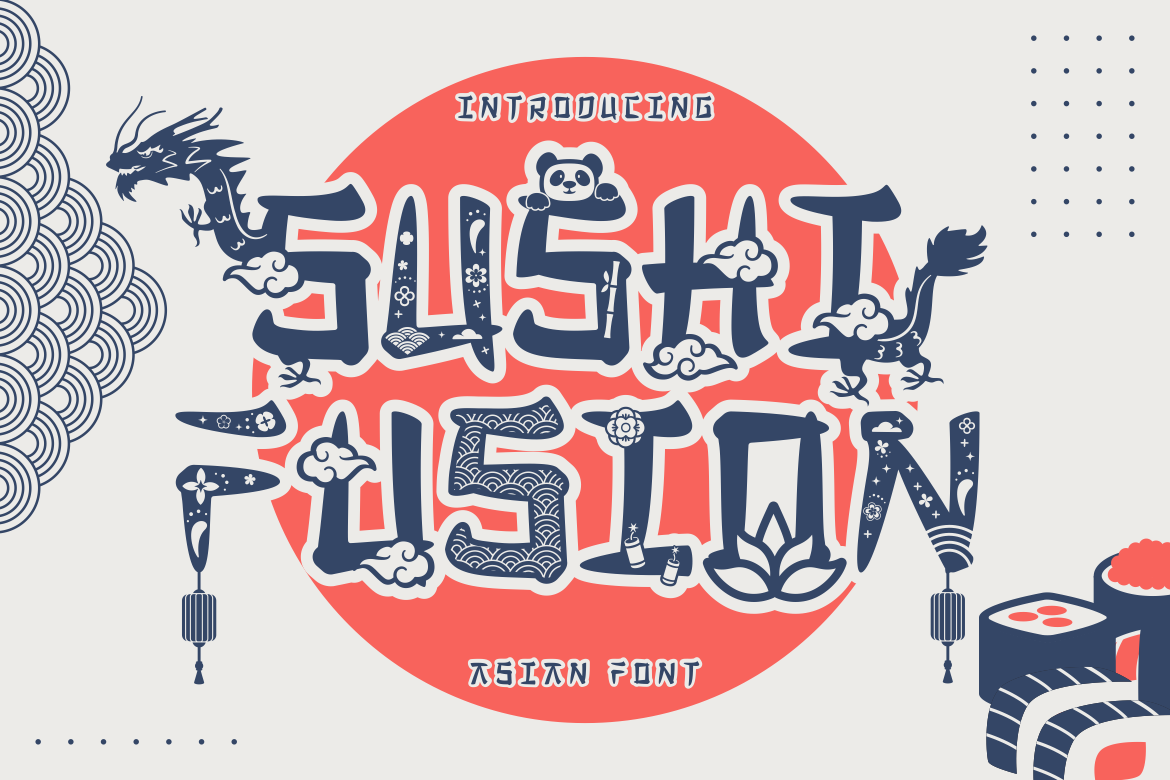
Sushi Fusion - Asian Theme Font
If you are looking for a whimsical and playful font that reflects the rich culture and artistry of Asia, you will love Sushi Fusion - Asian Theme Font. This font is inspired by the authentic brush strokes found in traditional Asian calligraphy, giving it a quirky yet elegant aesthetic. This display font showcases a fusion of cultural elements, making it an eclectic yet harmonious typeface perfect for various applications.
Sushi Fusion - Asian Theme Font is not just a font; it’s an experience that transports you to the vibrant streets of Tokyo or the serene landscapes of Kyoto. Each character is infused with elements reminiscent of Japan’s iconic art and culture, such as clouds, flowers, dragons, and sushi. You can use the characters individually or mix and match them with the variations to create stunning and eye-catching designs. This font is ideal for children’s books, crafters’ projects, branding, logos, invitations, packaging, posters, titles, business signage, greeting cards, stickers, magazines, and more. Whether you want to celebrate the Asian heritage, create a logo for your Asian-inspired business, or simply add some flair to your text, this font will help you achieve your goals. Sushi Fusion - Asian Theme Font is a display font that will make your designs stand out from the crowd.